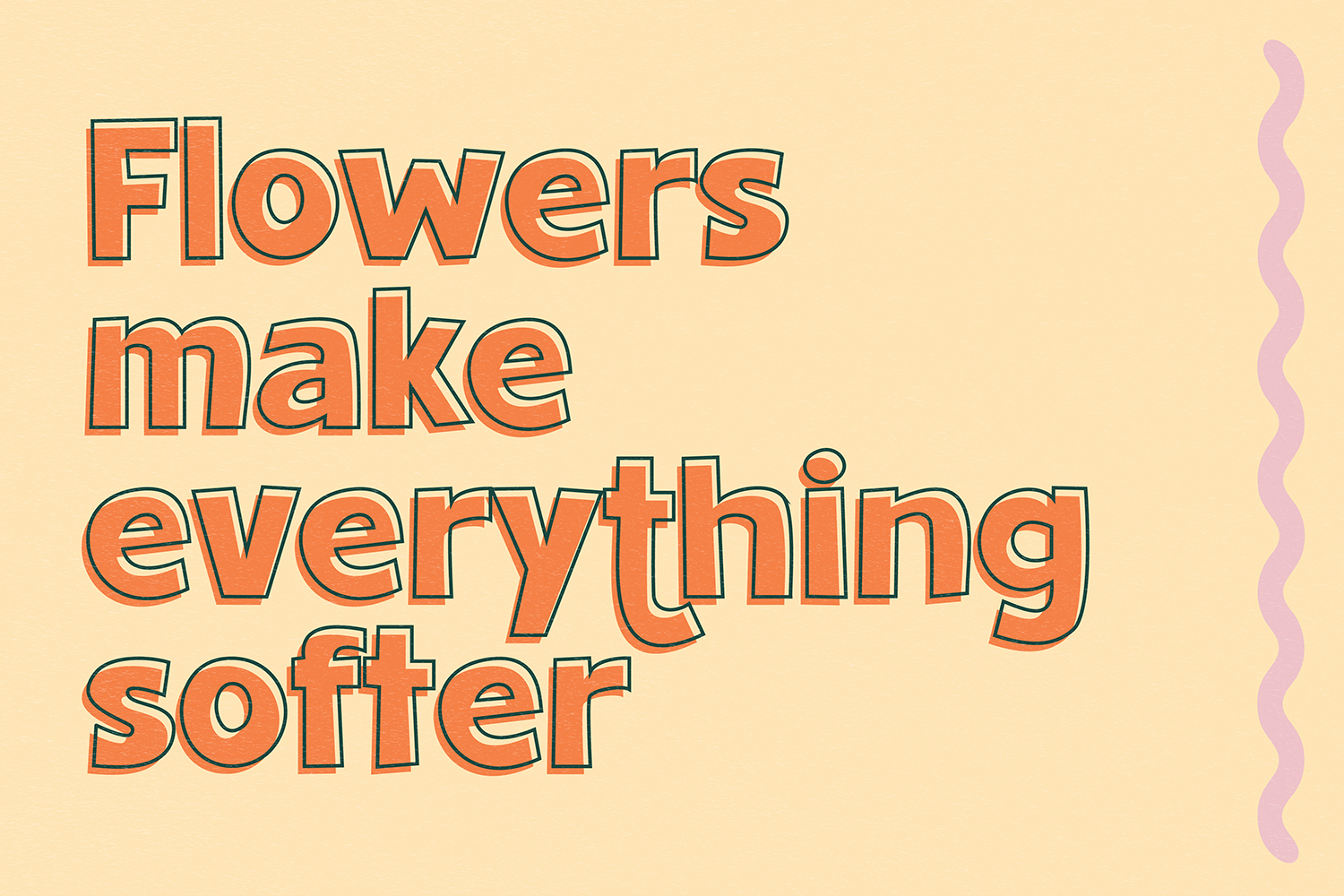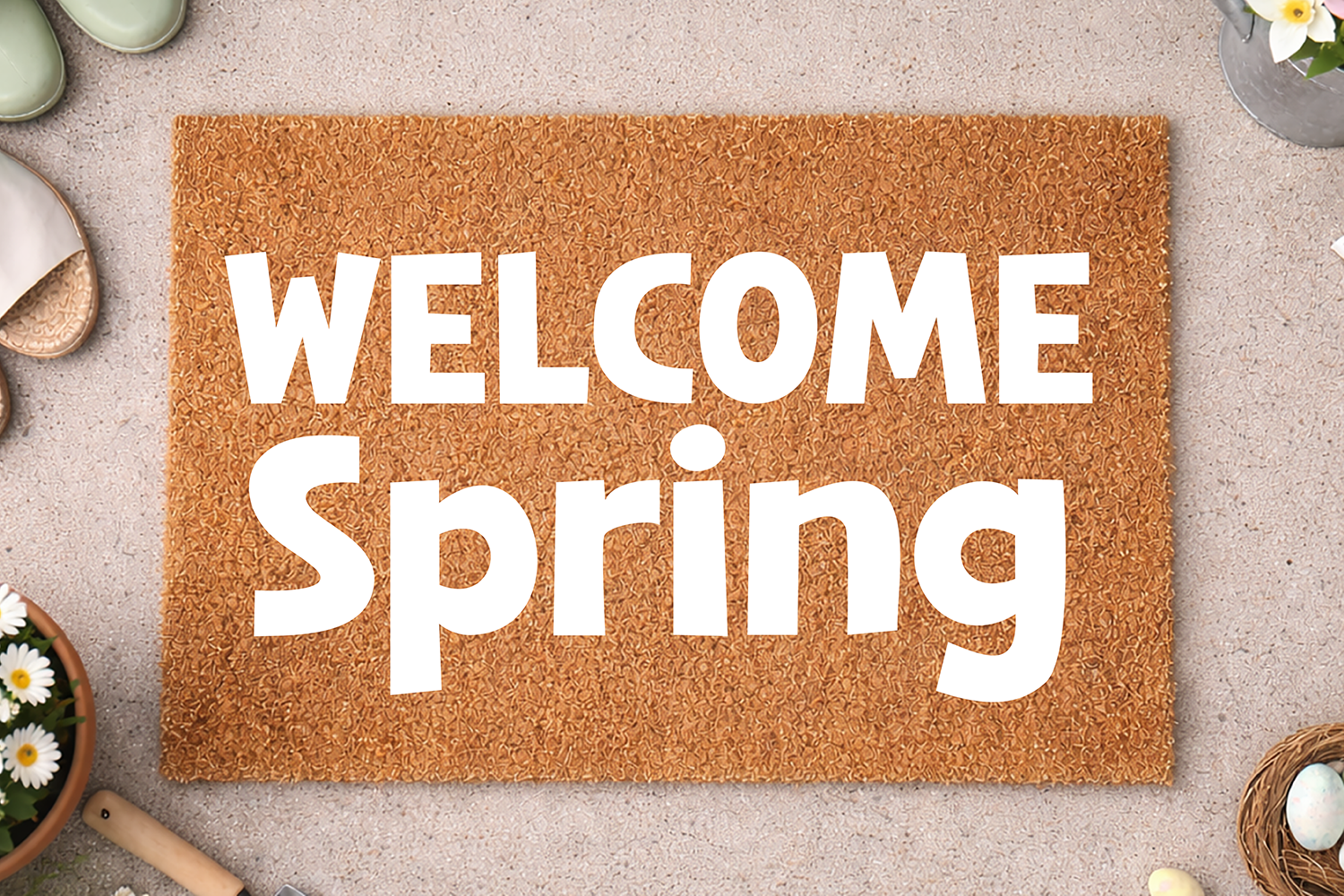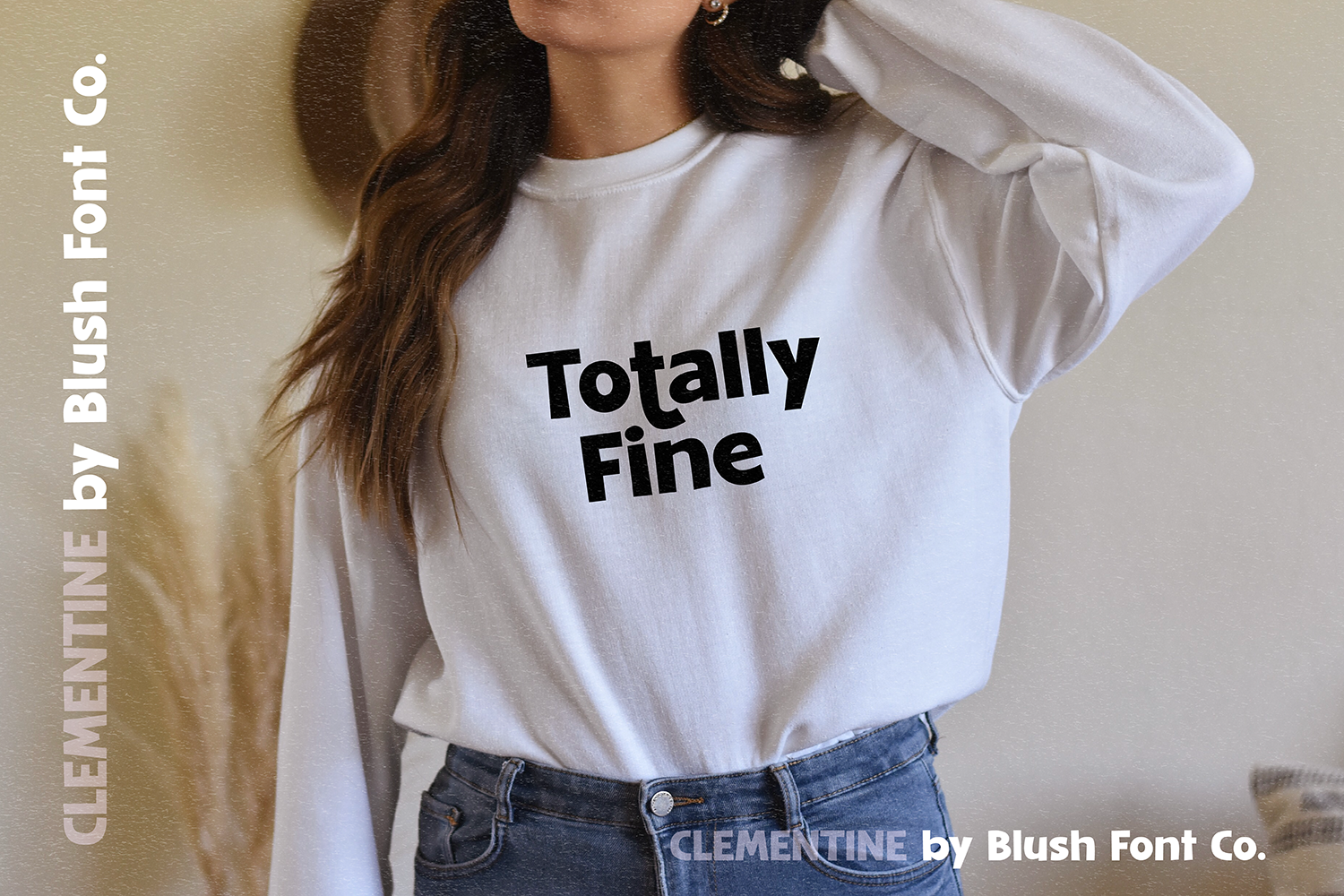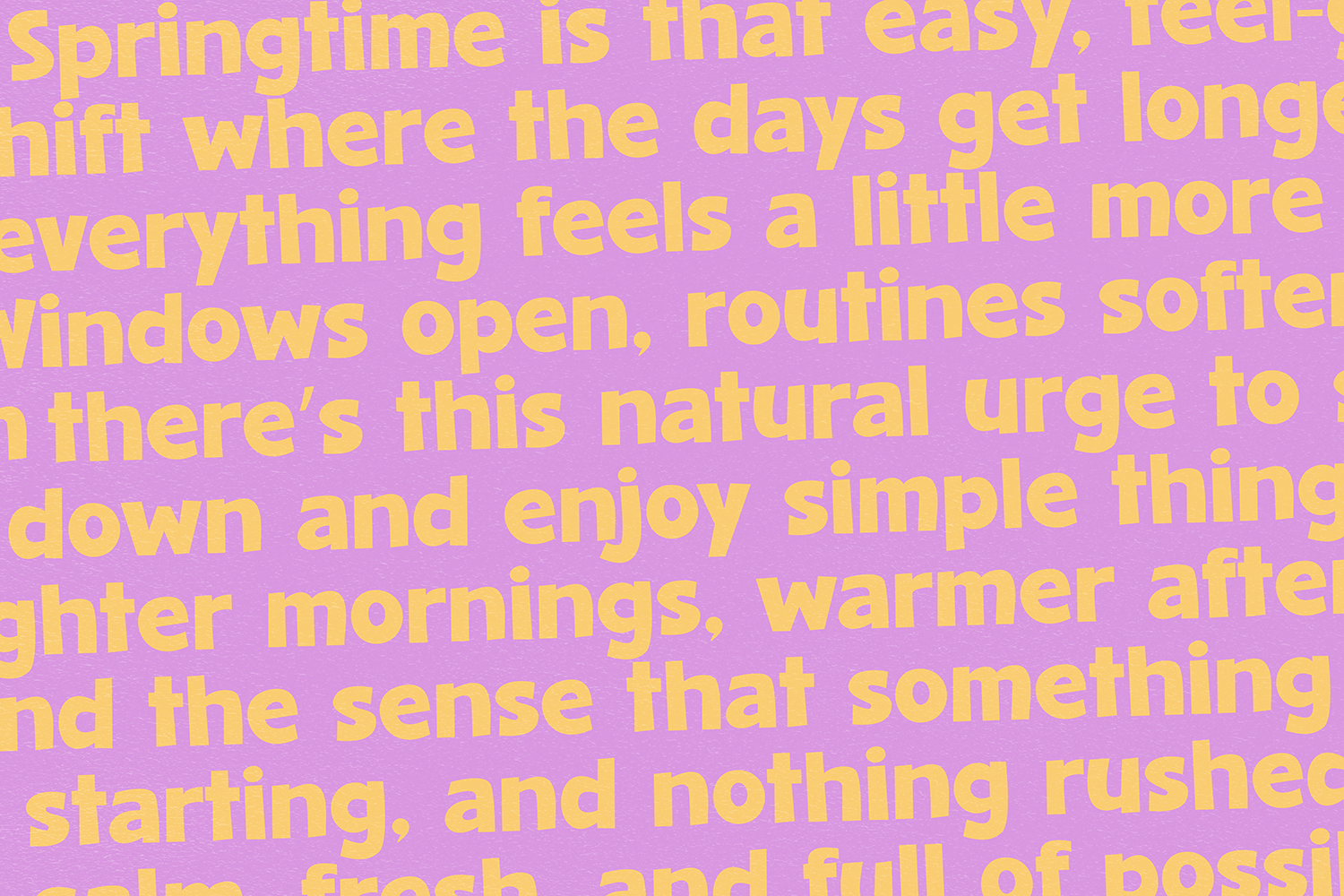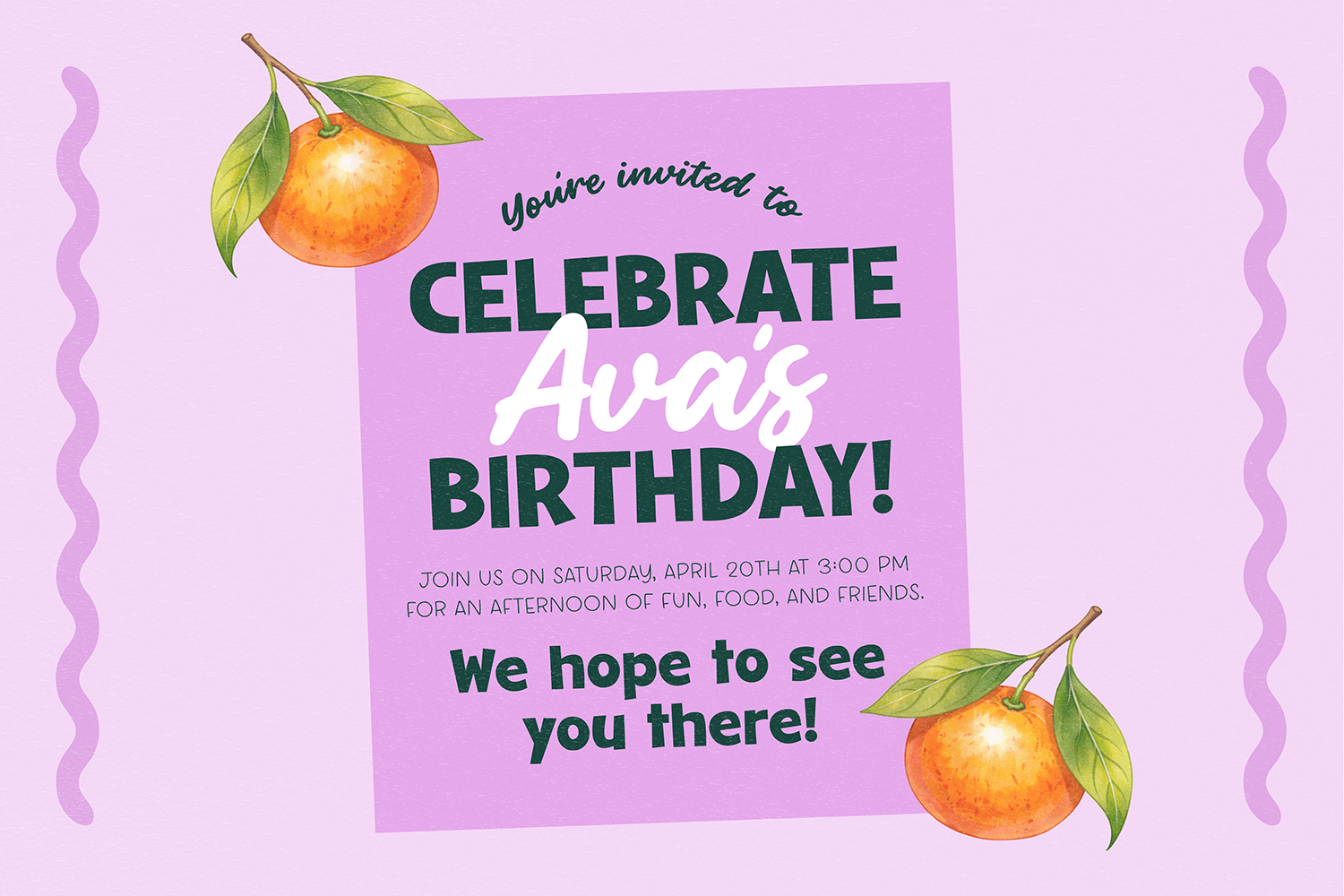
"Clementine" a stylish and fun chunky block font. This font is a bold display font that is perfect for social media or crafty projects. Use it for branding, crafts for decor, invitations, and more! Use in Canva pro, cricut, social media, capcut, and more.